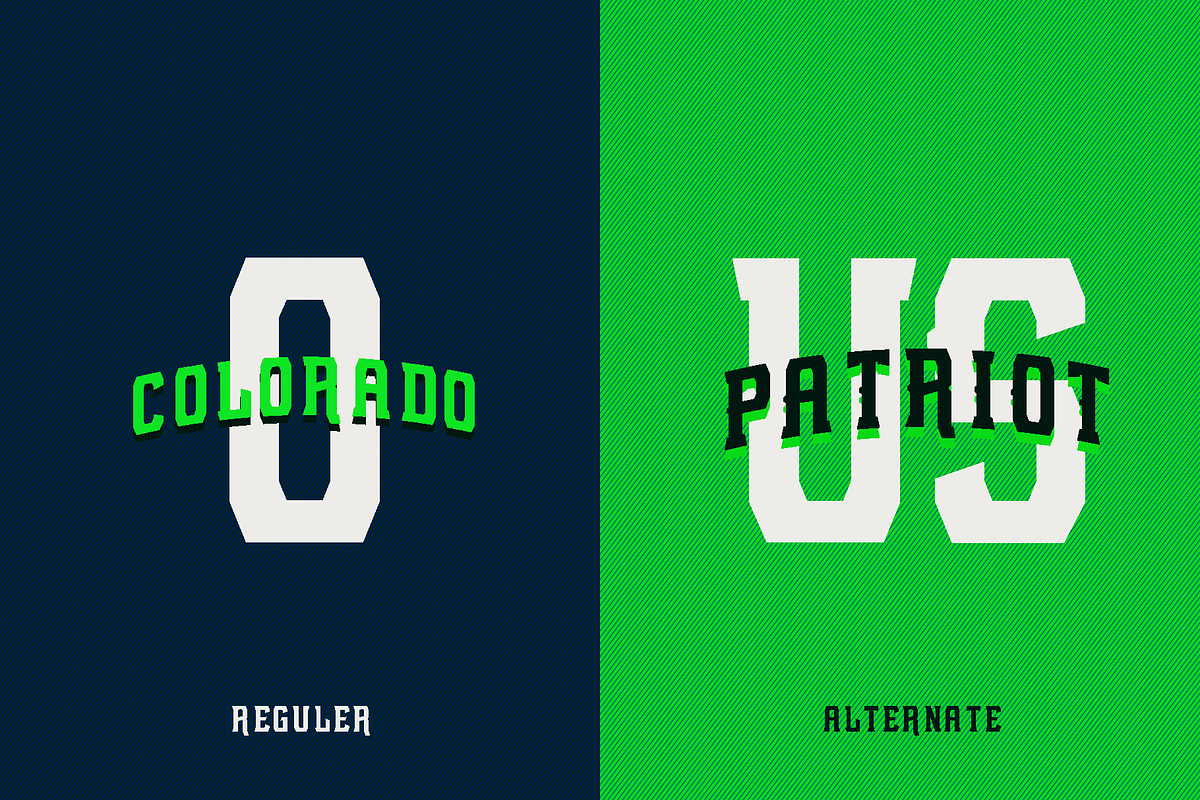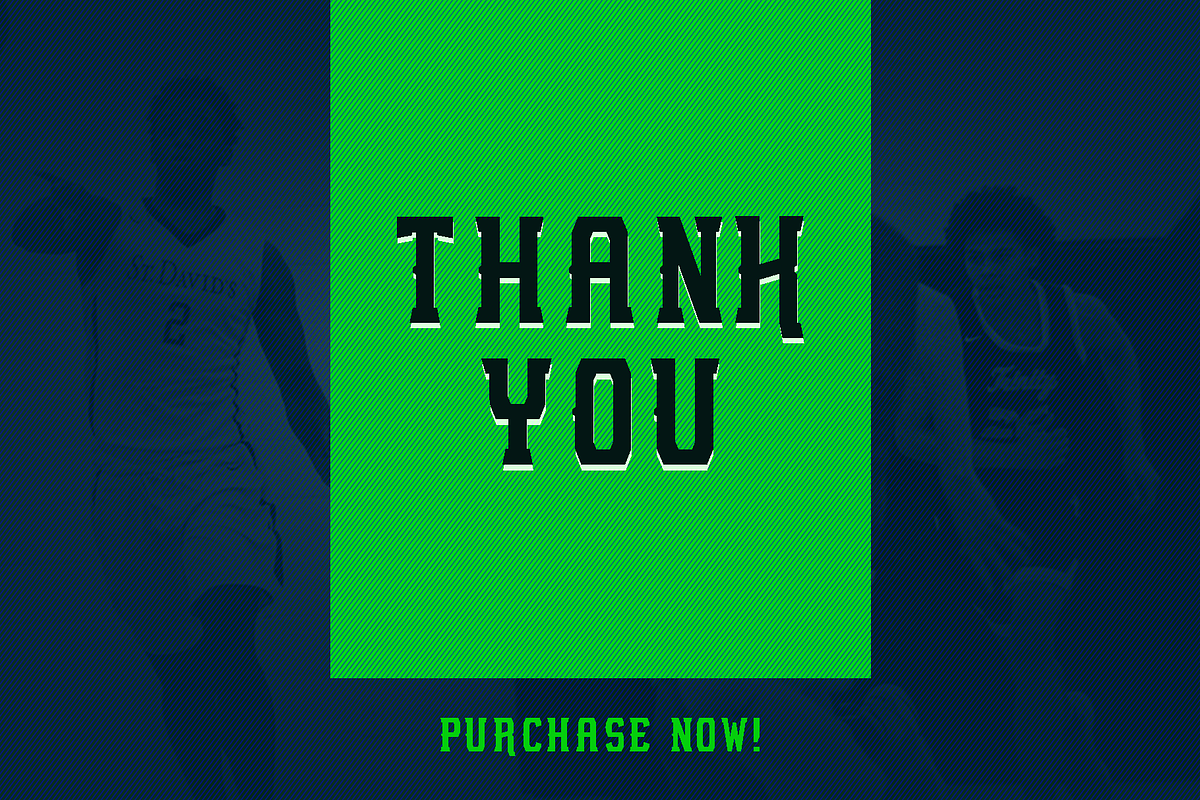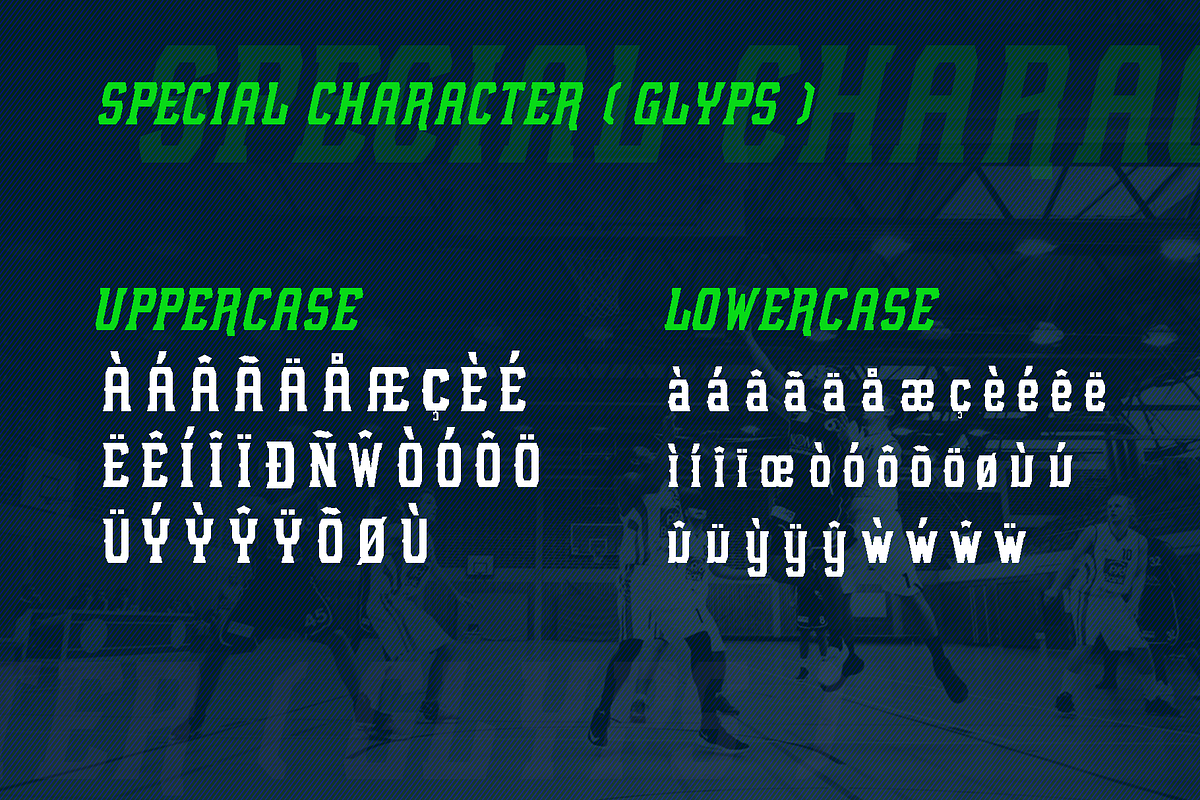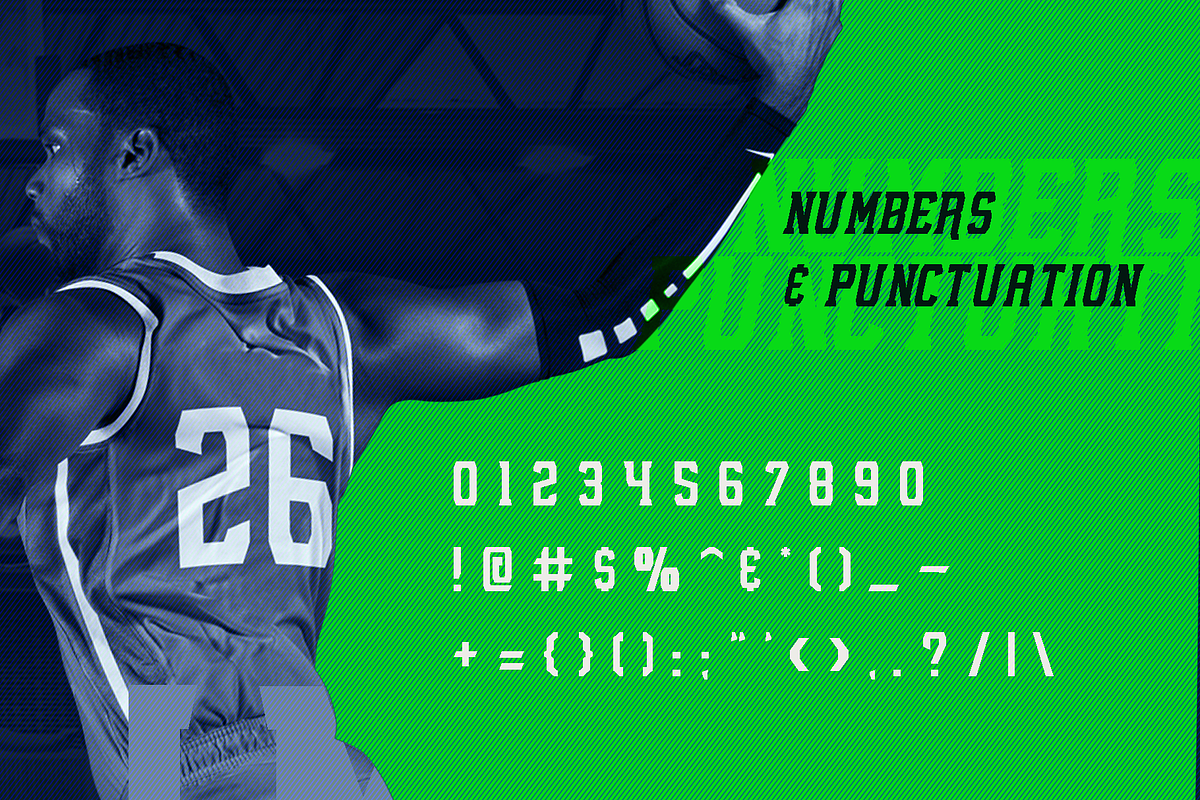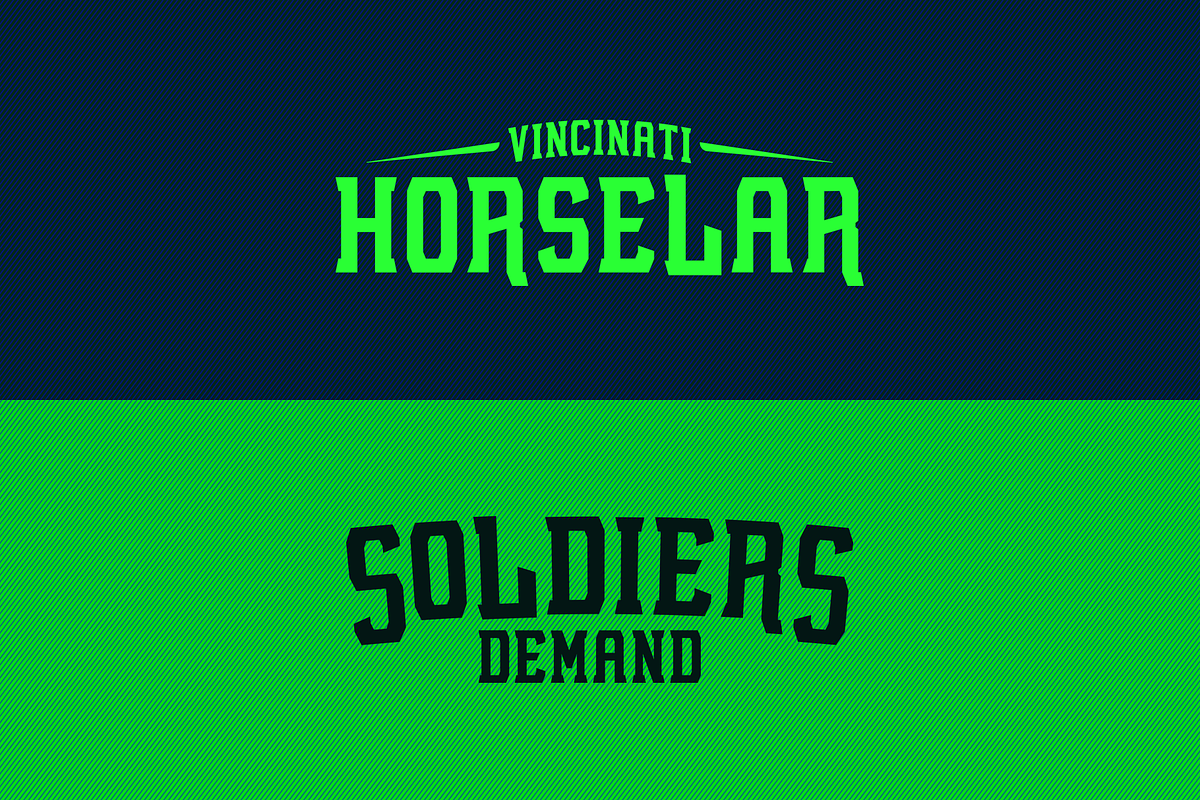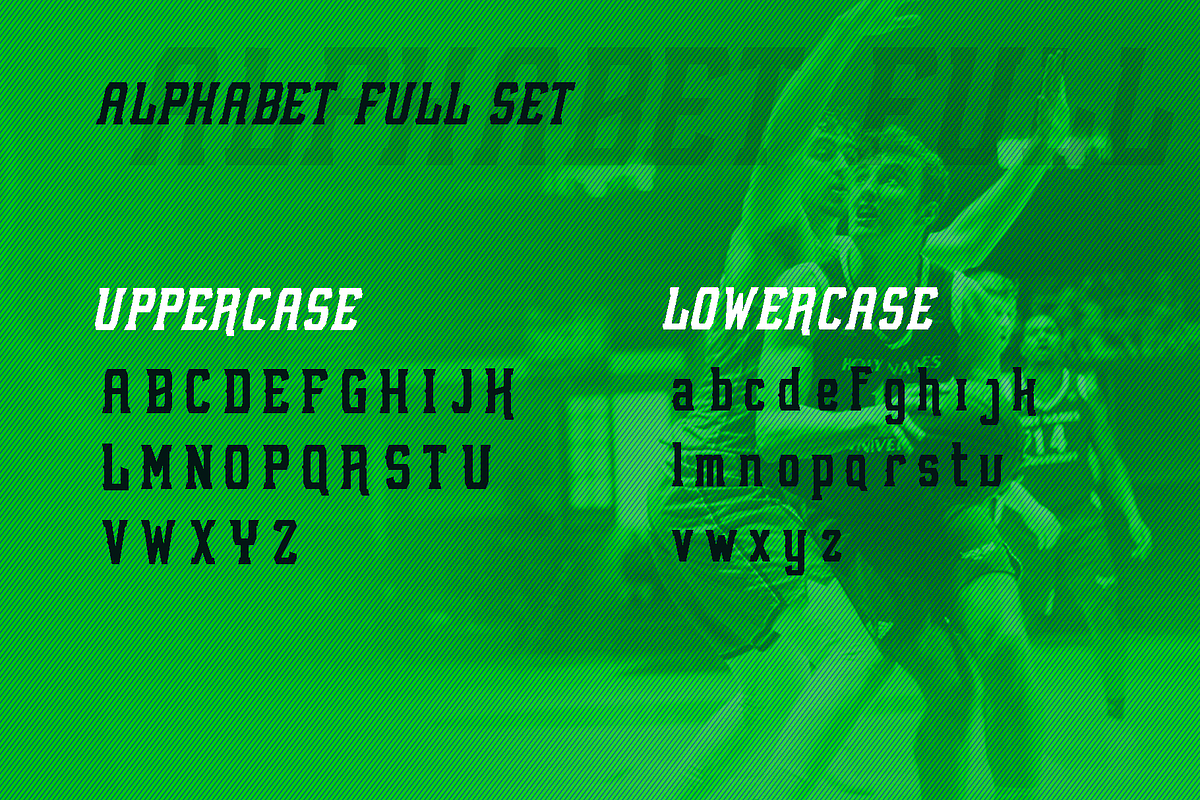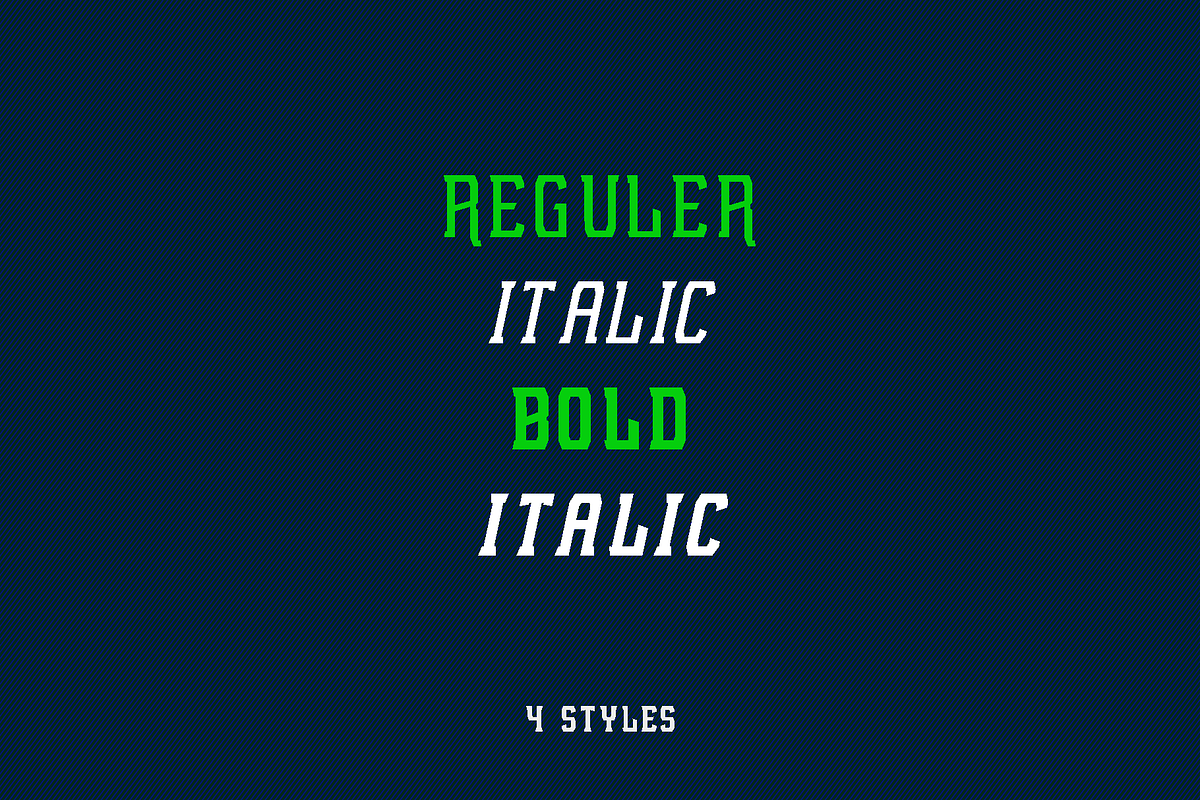
Introducing, "ROSHUNT" Font Family, after a long time not uploading new item, finally Ovoz Creative start to creating new font that related to sports industries. With bold and strong look that match with sports branding, this font very suitable use for baseball, hockey, basketball, etc.
This font has more advantages, such as more unique and unusual style you can explore.
Available into uppercase, lowercase, symbol, numeral, punctuation and including so many variant of glyph. Also suitable to t-shirt, jacket, hat, or everything related about merchandise.
This font has superiority that may not all font get, for example:
- Available into uppercase, lowercase, symbol, numeral, punctuation and including so many variant of glyph.
- NFC Roshunt Regular
- NFC Roshunt Italic
- NFC Roshunt Bold
- NFC Roshunt Bold Italic
- NFC Roshunt Alternate Regular
- NFC Roshunt Alternate Italic
- NFC Roshunt Alternate Bold
- NFC Roshunt Alternate Bold Italic